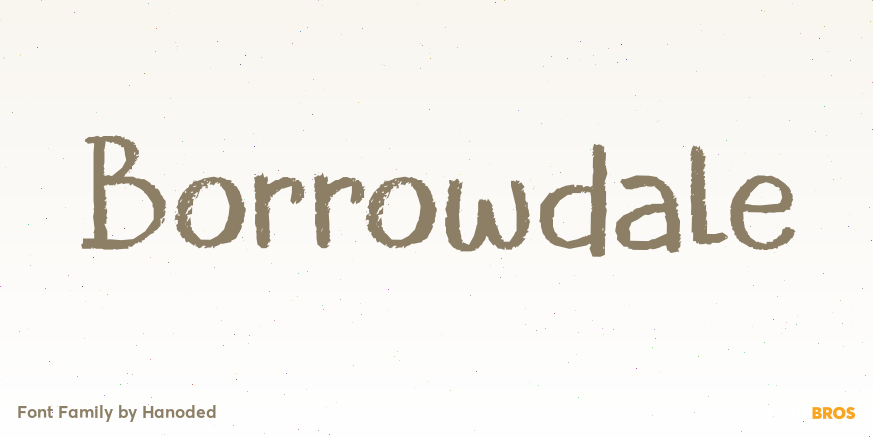
About Borrowdale
Borrowdale is a valley and civil parish in the English Lake District. In the 16th century a major deposit of graphite was discovered near Seathwaite, which kickstarted the pencil industry. Borrowdale font was made with one of my son\’s coloring pencils…